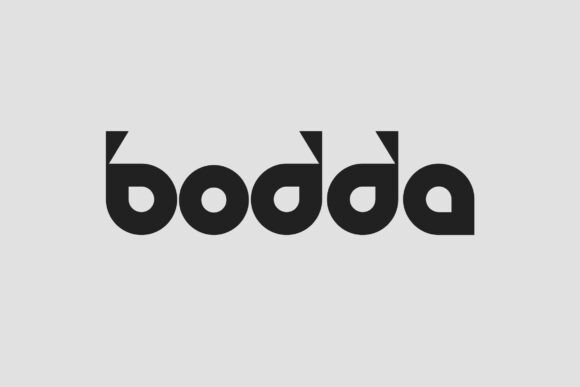
The Bodda Font: A Timeless Sans Serif for Modern Design
I’ll never forget the struggle I faced while working on a branding project for a trendy new cafe. My client wanted a font that was clean, modern, and versatile, but I was coming up blank. That’s when I stumbled upon the Bodda font, and it instantly became my go-to choice. In this article, I’ll share my experience with Bodda, its features, and how to make the most of it in your designs.
An Honest Review of Bodda Font
What I Love About Bodda ✨
- ✅ Clean and contemporary sans serif design
- ✅ Balanced proportions and smooth curves for excellent readability
- ✅ Geometric structure for a timeless appeal
- ✅ Highly versatile and adaptable to various design needs
- ⚠️ Limited availability of language support (but it’s expanding)
- ⚠️ Some users might find the font too minimalist for certain projects
- Experiment with OpenType features like stylistic alternates and glyphs to add visual interest to your design.
The Story Behind Bodda Font
Bodda was designed with the goal of creating a clean and contemporary sans serif font that adapts to various design needs. The designer aimed to create a font that is both timeless and versatile, making it perfect for branding, editorial layouts, web design, packaging, and presentations.
Q: What is the best use for Bodda font?
A: Bodda font is ideal for designs that require a clean and modern sans serif look, such as branding, editorial layouts, web design, packaging, and presentations.